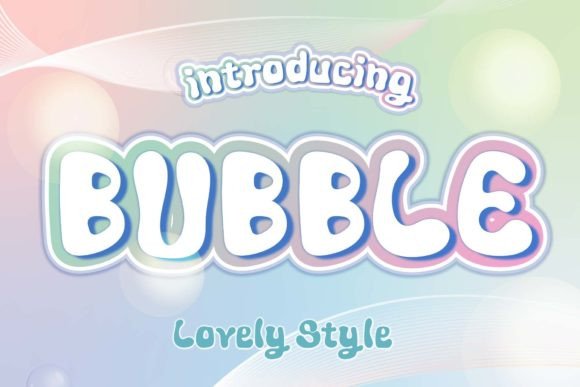
Bubble Font: Add a Groovy Retro Touch to Your Designs
Are you looking for a font that can add a playful and cheerful touch to your designs? Look no further than the Bubble Font! This lovely groovy retro font is perfect for creating fun and eye-catching designs that will capture the attention of your audience. In this article, we’ll explore the features and benefits of the Bubble Font, and how you can use it to elevate your designs.
What is Bubble Font?
Bubble Font is a unique and stylish font that is inspired by the retro designs of the 60s and 70s. It features bold, rounded letters that are reminiscent of bubble letters, hence the name. The font is designed to be highly legible and versatile, making it perfect for use on a wide range of design projects.
Key Features of Bubble Font
- Groovy Retro Style: The Bubble Font has a distinctly retro feel that is sure to bring a smile to your face. Its bold, rounded letters are perfect for creating fun and playful designs.
- Highly Legible: Despite its playful style, the Bubble Font is highly legible, even at small sizes. This makes it perfect for use on a wide range of design projects, from posters and flyers to mugs and other promotional items.
- Versatile: The Bubble Font is incredibly versatile, and can be used on a wide range of design projects. Whether you’re creating a poster, a social media graphic, or a marketing brochure, this font is sure to add a touch of personality and style.
How to Use Bubble Font in Your Designs
The Bubble Font is incredibly easy to use, and can be incorporated into your designs in a variety of ways. Here are a few ideas to get you started:
- Covers and Posters: The Bubble Font is perfect for use on covers and posters, where its bold, eye-catching style can really make your design stand out.
- Mugs and Promotional Items: The font is also great for use on mugs and other promotional items, where its playful style can add a fun and personality to your brand.
- Spring Designs: The Bubble Font is a great choice for spring designs, where its bright, cheerful style can help to capture the feeling of the season.
- Marketing Materials: The font can also be used on marketing materials, such as brochures, flyers, and social media graphics, where its playful style can help to engage your audience.
Benefits of Using Bubble Font
There are many benefits to using the Bubble Font in your designs. Here are a few:
- Adds a Touch of Personality: The Bubble Font is a great way to add a touch of personality and style to your designs. Its playful, retro style is sure to make your designs stand out.
- Easy to Read: Despite its playful style, the Bubble Font is highly legible, even at small sizes. This makes it perfect for use on a wide range of design projects.
- Versatile: The Bubble Font is incredibly versatile, and can be used on a wide range of design projects. Whether you’re creating a poster, a social media graphic, or a marketing brochure, this font is sure to add a touch of personality and style.
Tips for Getting the Most Out of Bubble Font
Here are a few tips for getting the most out of the Bubble Font:
- Use it Sparingly: While the Bubble Font is playful and fun, it can be overwhelming if used too much. Use it sparingly to add a touch of personality to your designs.
- Experiment with Colors: The Bubble Font looks great in a variety of colors, so don’t be afraid to experiment and find the perfect color for your design.
- Pair it with Other Fonts: The Bubble Font can be paired with other fonts to create a unique and interesting design. Try pairing it with a bold, sans-serif font for a fun and playful look.
The Bubble Font is a fun and playful font that is perfect for adding a touch of personality and style to your designs. Its groovy retro style, high legibility, and versatility make it a great choice for a wide range of design projects. Whether you’re creating a poster, a social media graphic, or a marketing brochure, the Bubble Font is sure to elevate your design and capture the attention of your audience.